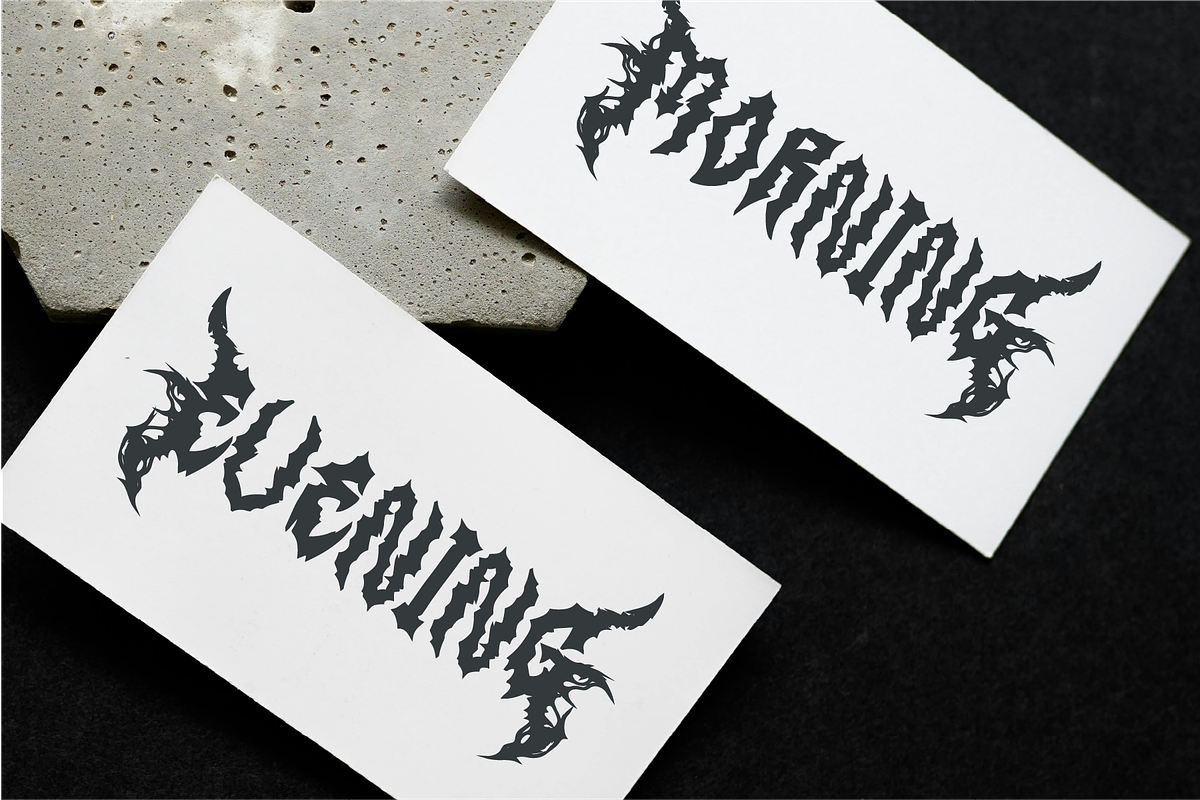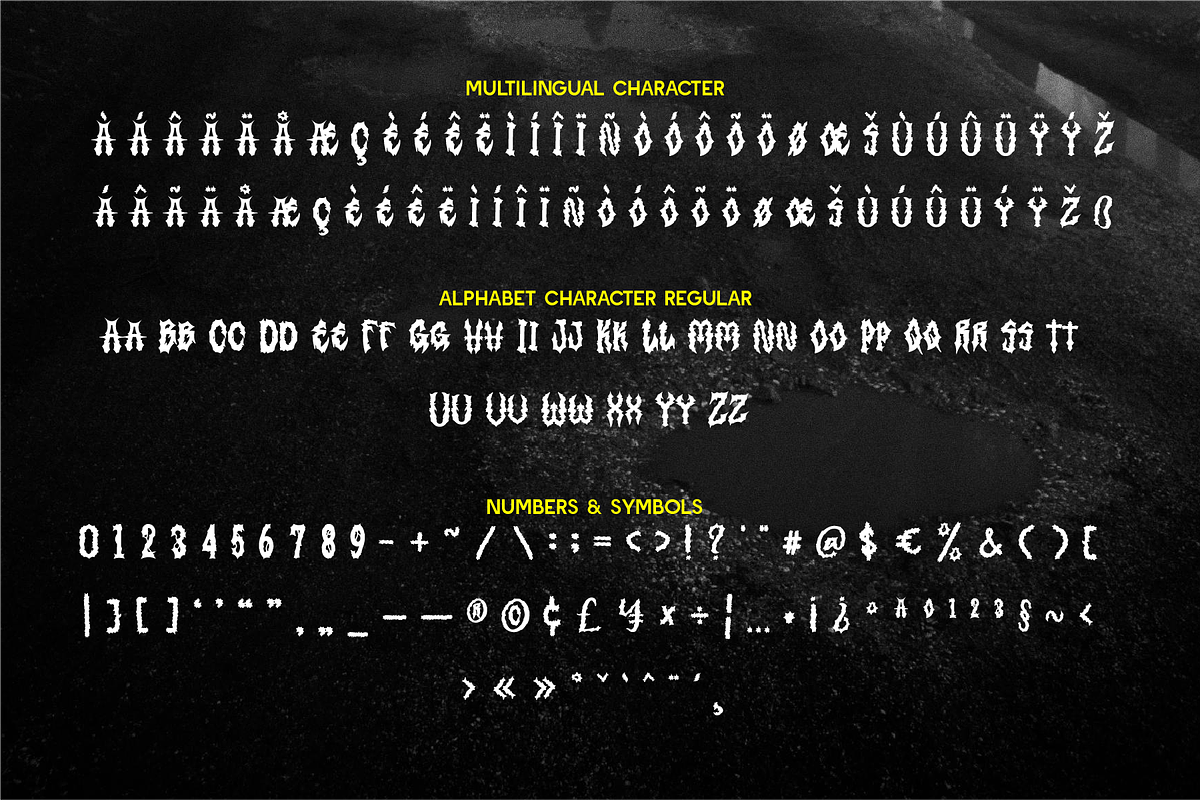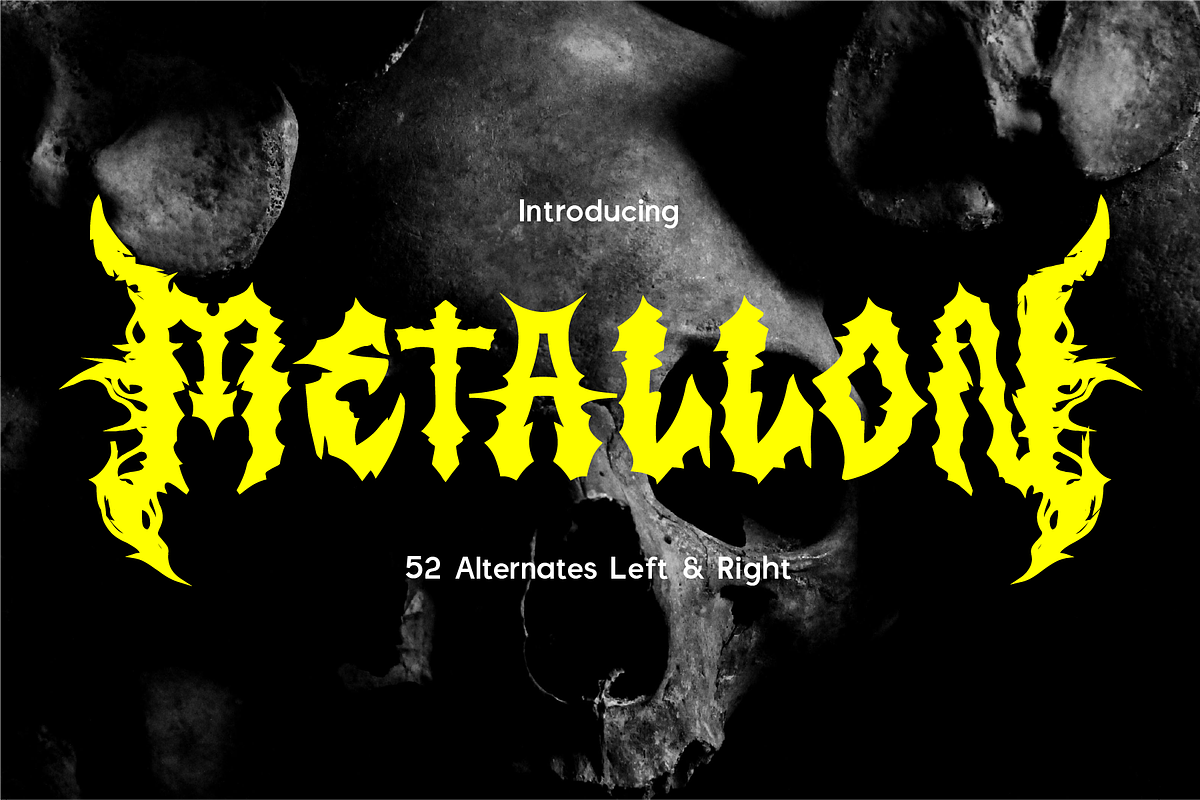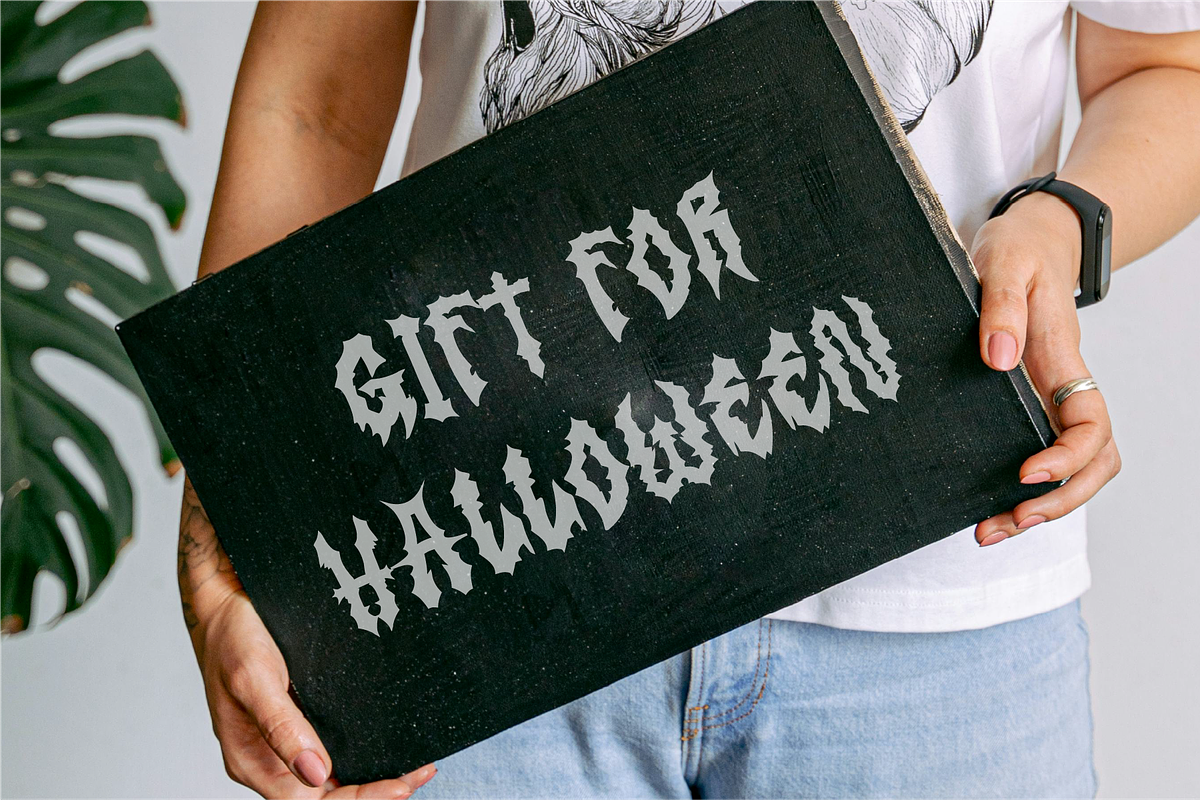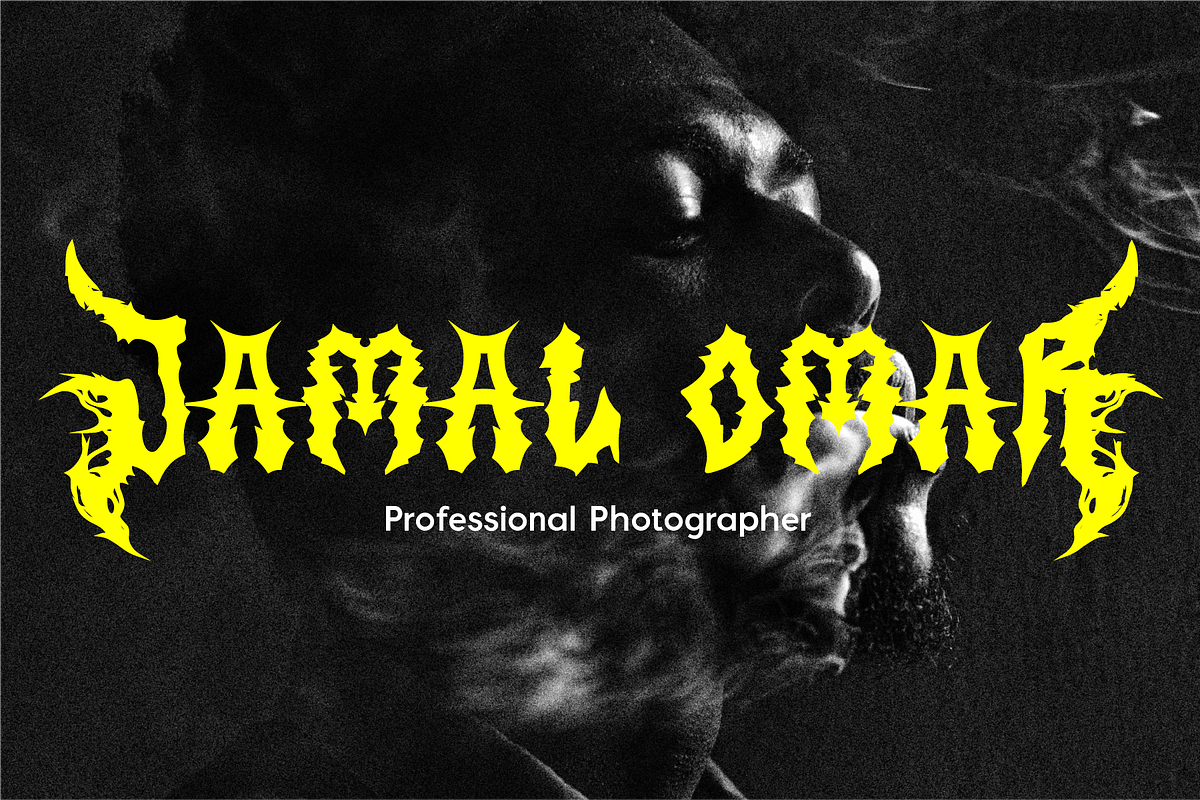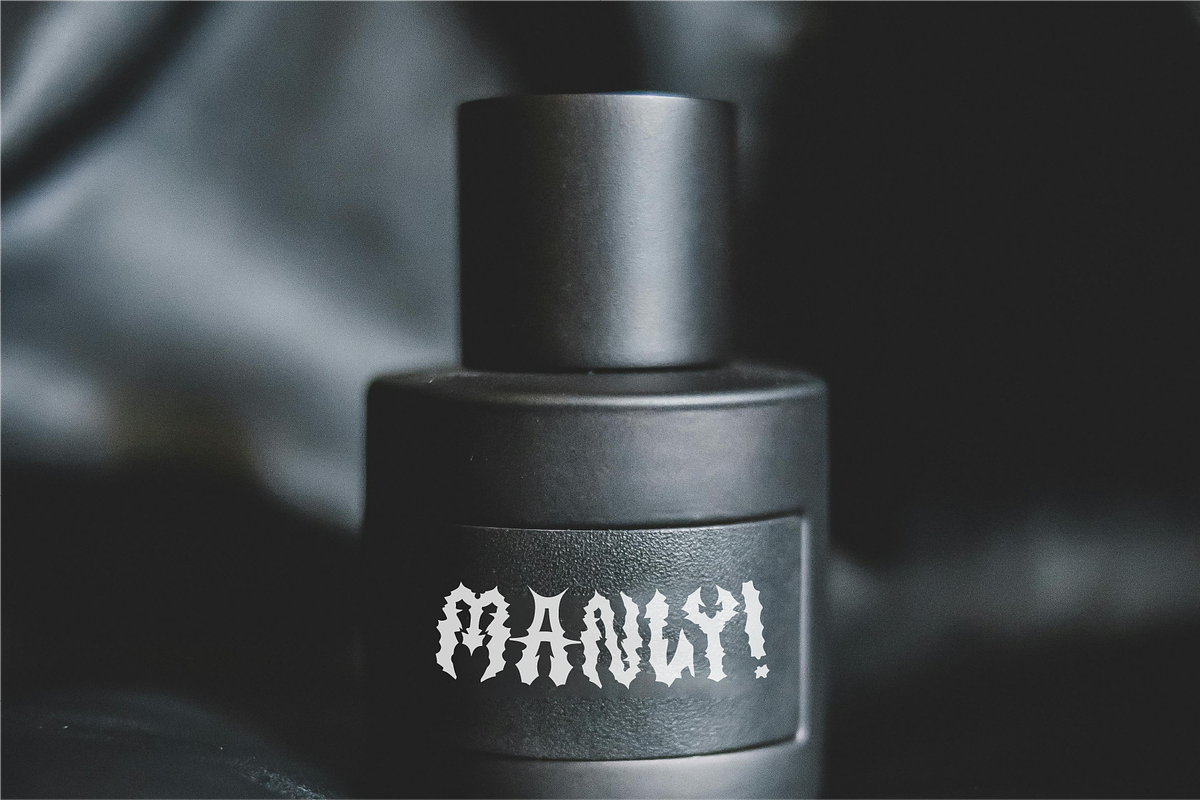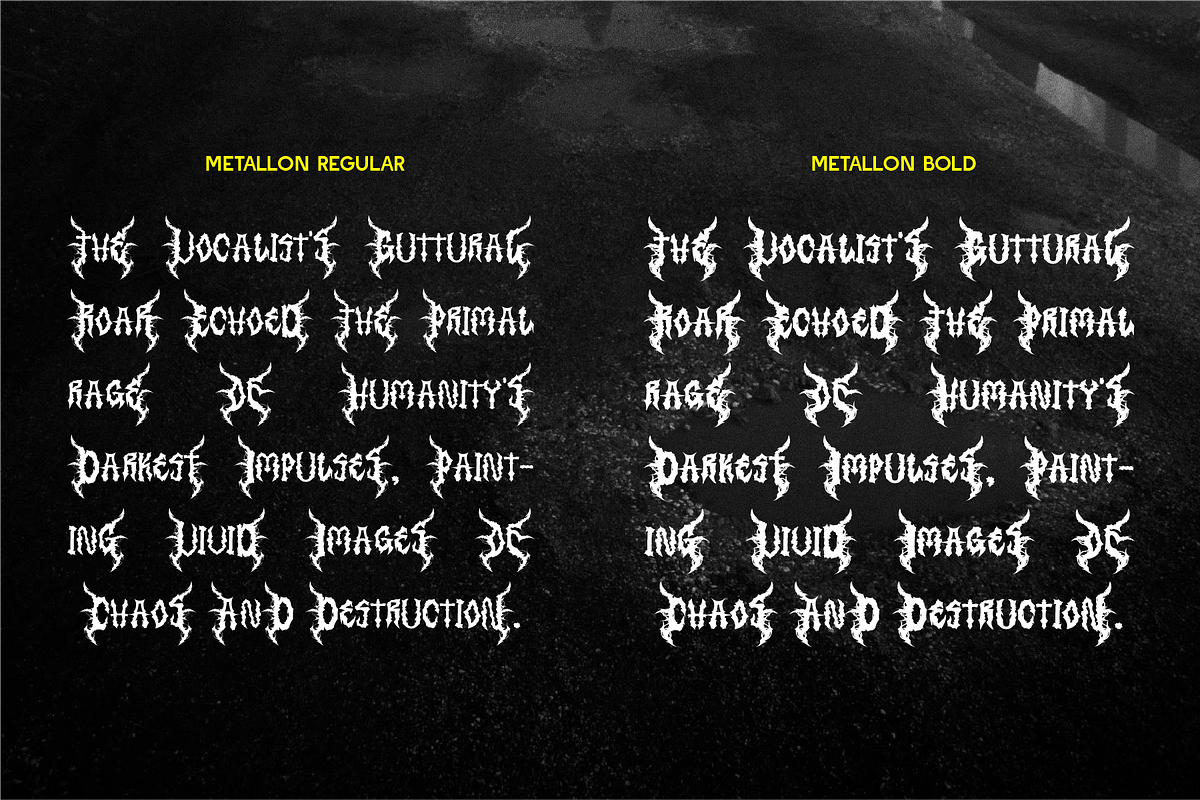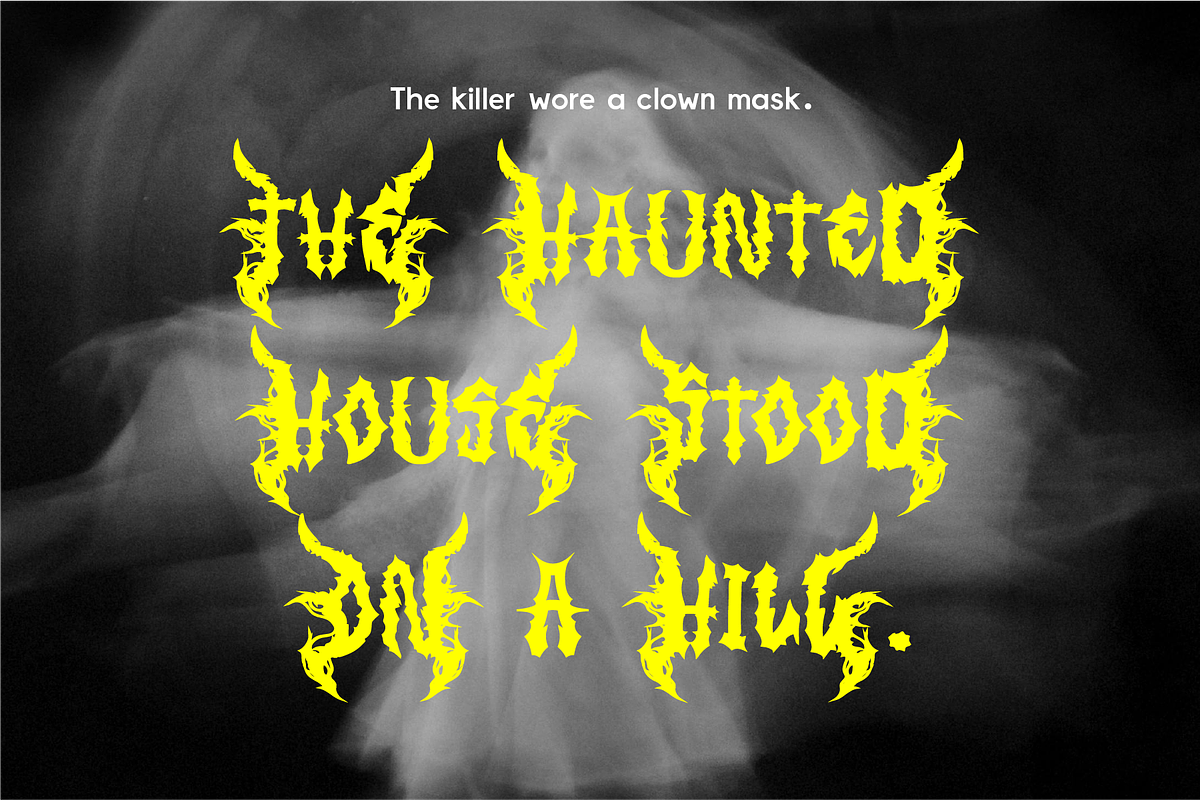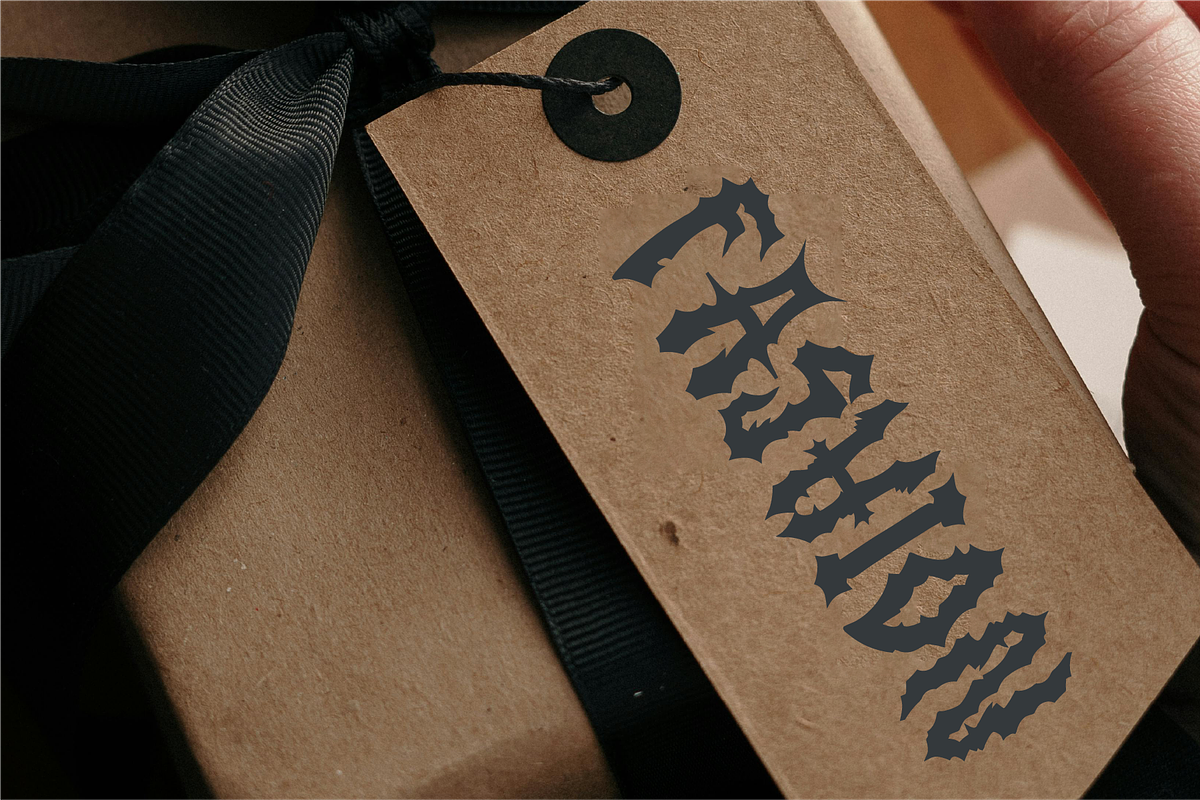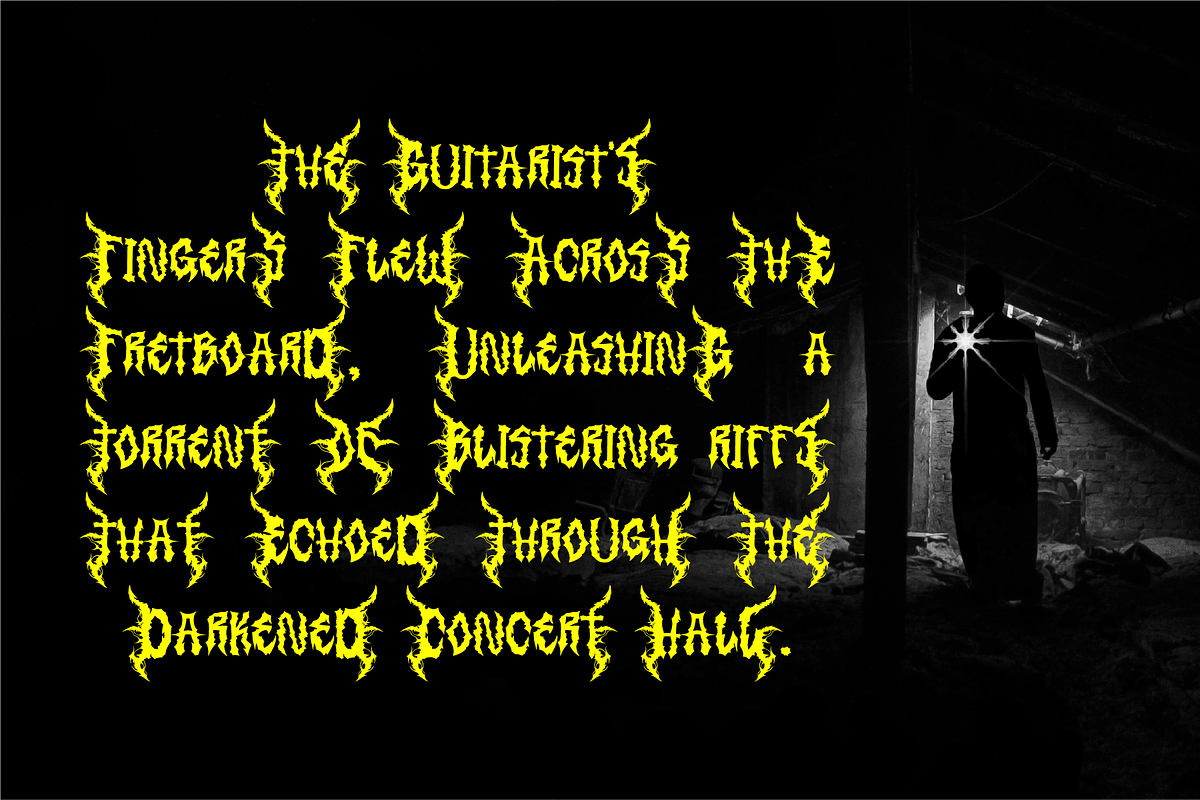
Metallon - Metal Decorative
Metallon – The Ultimate Heavy Metal Font with 52 Brutal Alternates Unleash the power of metal with Metallon, a savage and electrifying typeface built for extreme impact. Inspired by heavy metal aesthetics, this font is packed with razor-sharp edges, chaotic energy, and fierce details, making it the perfect choice for band logos, album covers, horror themes, festival posters, and underground branding. With 52 alternates for left and right characters, Metallon lets you customize your typography for the ultimate brutal and aggressive look. Whether you're crafting death metal artwork, dark fantasy branding, or horror movie titles, this font delivers maximum intensity and dominance.
Why Choose Metallon?
🔥 Raw & Aggressive: Perfect for heavy metal, hardcore, and gothic designs. ⚡ 52 Alternates: Mix and match for a unique, chaotic look. 🖤 Dark & Fearless: Ideal for album covers, horror themes, and extreme branding. 🎸 Bold Statement: A typeface that screams power, destruction, and rebellion. Crank up the volume and ignite your designs with Metallon. Get it now and make your visuals louder, darker, and more intense than ever! 🤘🔥
- Standard Character A-Z, a-z, 0-9, Punctuation & symbols
- Regular and Bold